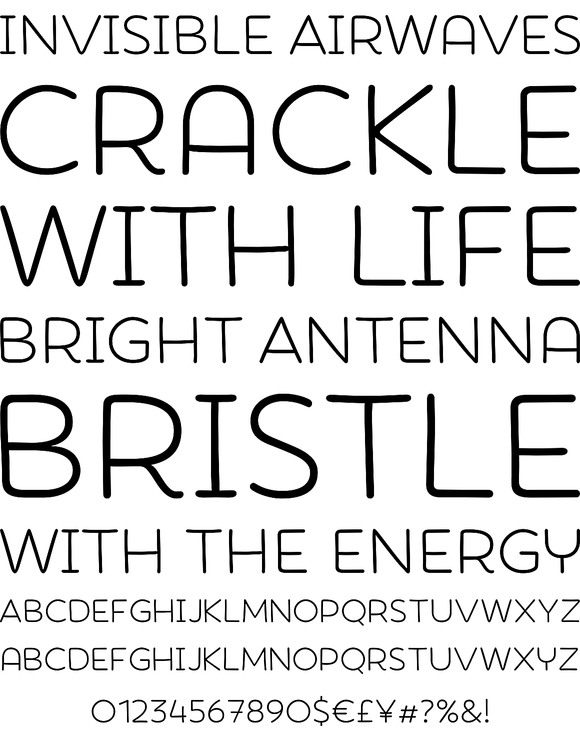
Showcase, the new typeface of Daniel Hernandez and Paula Nazal is a handmade font consisting of a set of types that are composed of four styles, one script, one sans, a slab, sans mini and finally a set of ornaments and dingbats, all made to work together in the same language. It’s inspired by a pen that writes different typefaces and ornaments, and casually reaches into a harmonious family.
Showcase is very easy to use and allows great versatility, can be used both in a magazine as a restaurant, through windows, cafes, and really anyway you can think of!